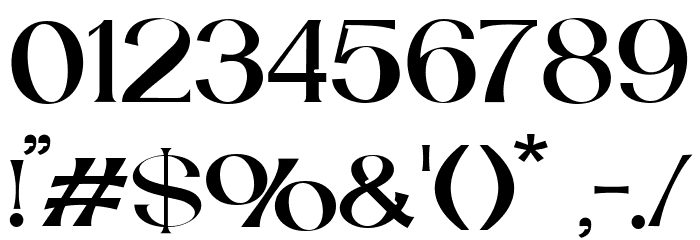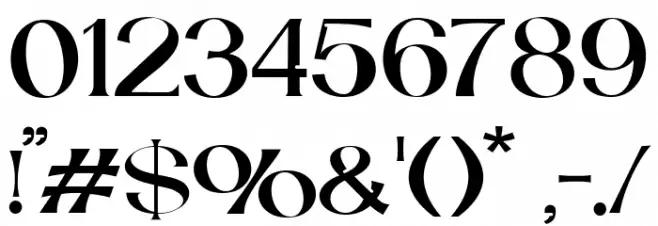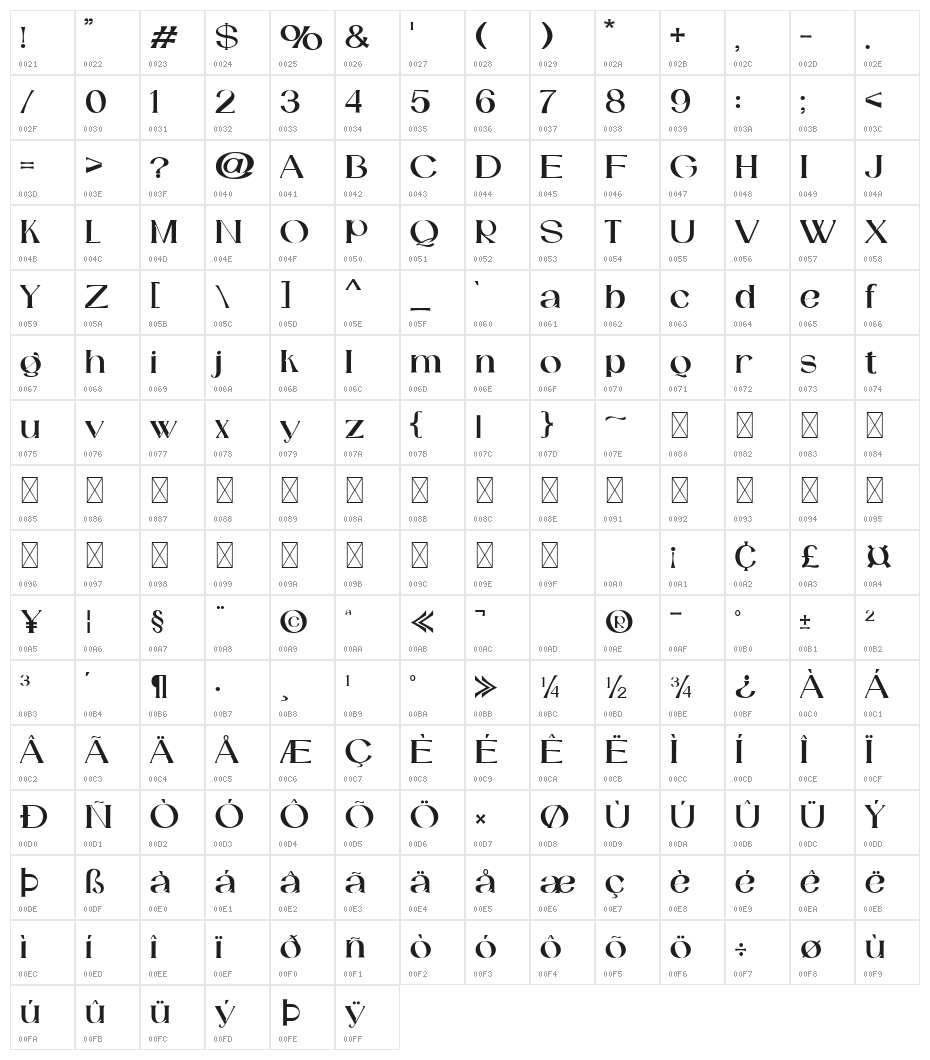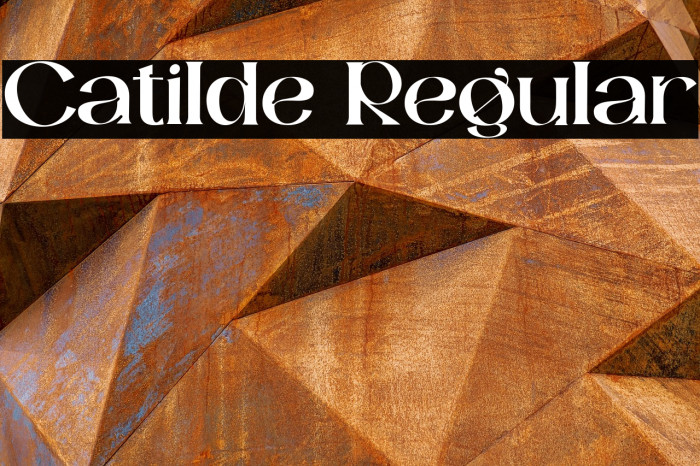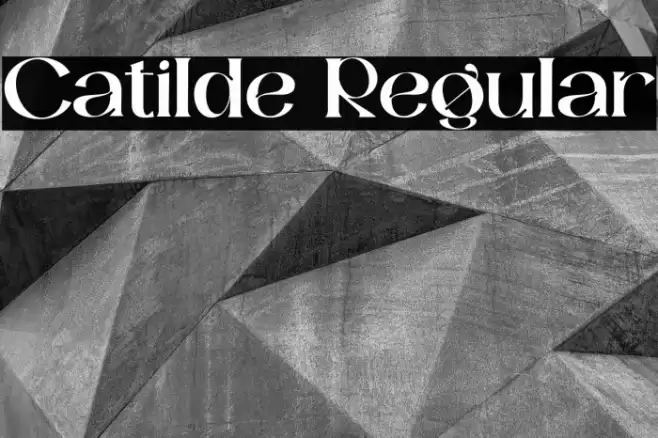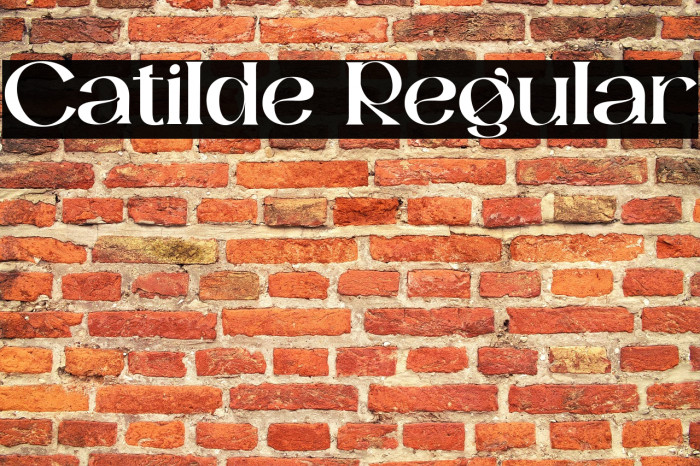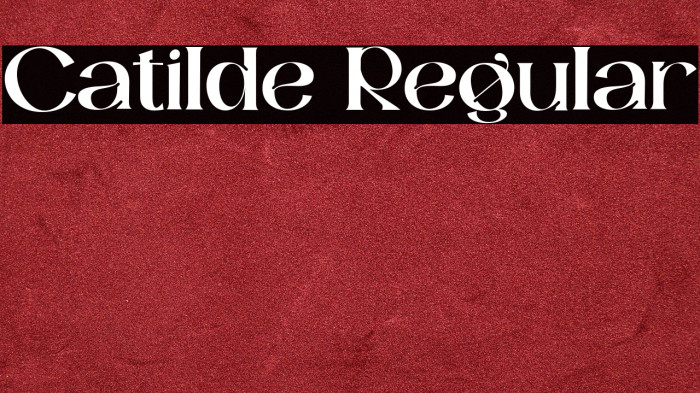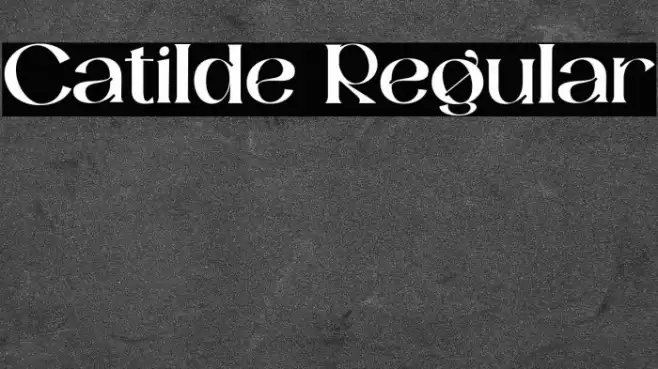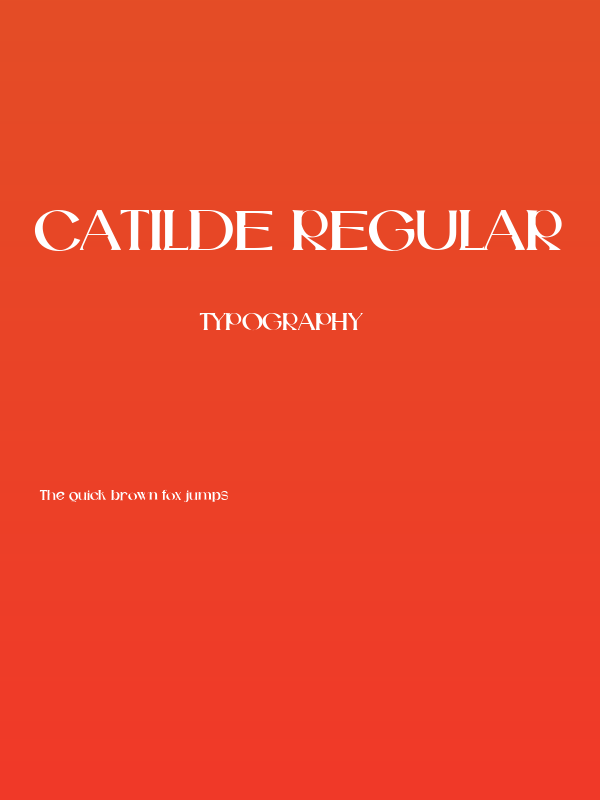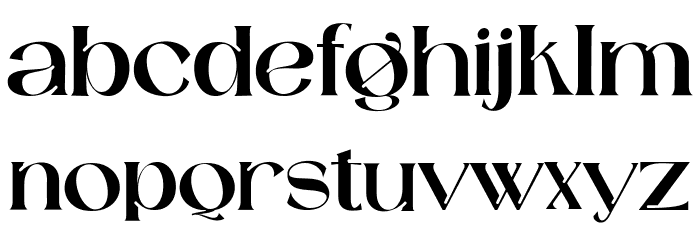
Catilde Regular Font
Catilde Regular Description
This font features a unique blend of modern and classic elements, characterized by its sharp serifs and high contrast between thick and thin strokes. The uppercase letters exhibit a bold presence with distinct angular cuts, while the lowercase letters maintain a more fluid and rounded appearance. The numerals are designed with a consistent weight, providing a balanced look. Special characters are crafted with attention to detail, enhancing the font's overall elegance. This typeface is versatile, suitable for both digital and print media, offering a sophisticated touch to any design project.
| Use Case | Headlines, Logos, Editorial design |
| Proposed Projects | Ideal for branding, editorial design, luxury product packaging, and high-end fashion magazines. |